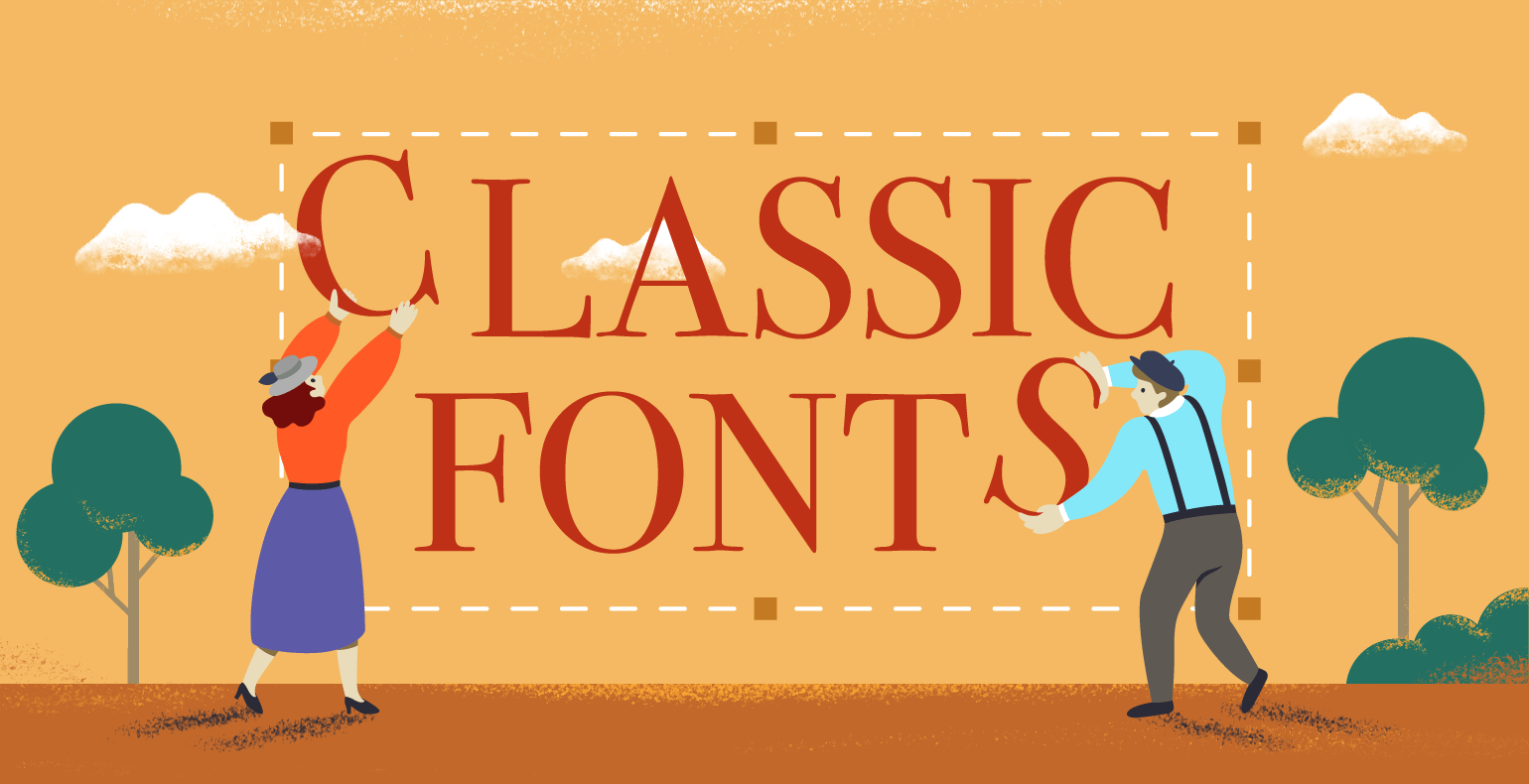
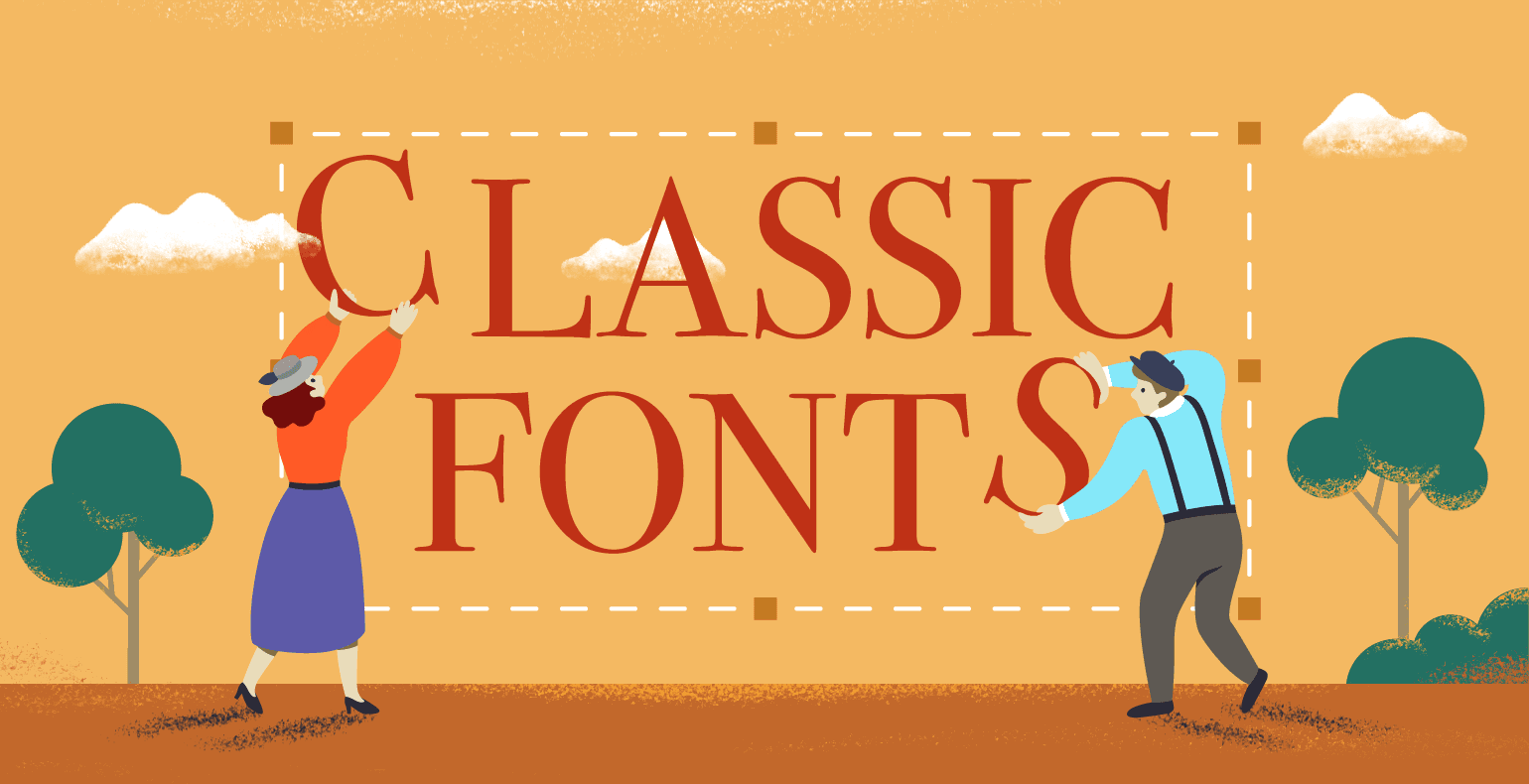
Knowing the fundamentals of classic typography is a must-have skill for any graphic designer.
The only issue is that there are a ton of modern fonts out there so it may be overwhelming to choose one for a new project, whether it's a website, logo, or online advertising campaign.
Here are the fonts they picked.
Elegant, functional, and with an element of warmth due to its slightly rounded corners, Brandon Grotesque is the most versatile font in my personal font library. With a diverse range of weights, Brandon is that one font that looks good spaced out in a thin weight and bolded in all caps. It works well in a diverse range of contexts, such as headlines and body texts, but its greatest strength lies in evoking warmth and friendliness despite its geometric style. It’s a font family that extends itself in creating structure and balance in a refined way.
Brandon Grotesque is a classic sans serif font. It was designed by Hannes von Döhren, who is the owner of HvD Fonts, a type design studio.
This typeface was greatly influenced by the geometric fonts that were quite popular in the 20s and 30s. It's available in six weights (thin, light, regular, medium, bold, and black) and also matching italics.
Hannes von Döhren managed to create a geometric-inspired typeface that has a soft and warm feel to it.
In 2011, Brandon Grotesque even received the Certificate of Excellence from the Type Directors Club, NY. Classic sans serif fonts will never die.
Baskerville is the transitional font that I always go back to because it’s easy to read, sharp, and appealing, which makes it an excellent typeface. Also, the contrast between thick and thin strokes in the letters results in elegant forms throughout the entire font family. The font style is somewhere between classic and modern due to the fact that the font was designed in 1757, but nowadays, it’s one of the most popular fonts. It doesn't just elicit trustworthiness but also is stylish enough to give any design an element of elegance without overdoing it. It can be used for body text, but you will be amazed by what you can do with it in purely typographic art compositions.
Baskerville is a classic serif font designed by John Baskerville, back in the 1750s.
Baskerville (the man) started his career by teaching calligraphy and carving gravestones. At that time, the books that were printed in England had a low standard of quality, and the typefaces that were being used had a conservative style.
Because of this, he wanted to create books and print them using a higher-quality method.
This font has a few interesting features:
Baskerville manages to accentuate the contrast between thick and thin strokes, which makes this font an excellent option for the modern days. Classic serif fonts never dissapoint.
I call it "my favorite" because of its versatility. It became one of the most used fonts among designers. This font comes with seven weights (thin, light, regular, semibold, bold, extra bold, and black – each one with an italic version too). I use it as a safe font (especially whenever I don't know what to use), and it matches most of my combinations. I've been using this font in Menus, Headlines, anything that you could think of (even logos) and it does great!
Proxima Nova was created by Mark Simonson in 2005, who is a graphic designer, illustrator, and founder of a studio specialized in lettering and typography.
Simonson has been working on this typeface in various forms since 1981. Proxima Nova is actually a complete remodel of Proxima Sans, that was released in 1994, which is now discontinued.
There are 48 fonts in this family and three widths: Proxima Nova, Proxima Nova Condensed, and Proxima Nova Extra Condensed.
Is has eight weights: Thin, Light, Regular, Medium, Semibold, Bold, Extrabold, and Black. There are also matching italics for all the widths and weights.
Proxima Nova is a hybrid between Futura and Akzidenz Grotesk, which combines a modern style with a geometric aspect.
Even though it's quite a popular font on the web, it's a great option that can be used for various purposes, like Robert said.
Picked by Gyöngyi Balogh:
There are many beautiful classic fonts to choose from, but my current favorite is Rockwell. It was created for headlines, it was designed by the Monotype Corporation and was released in 1934. It's a geometric slab-serif font with a monoline construction and some extra strokes that give this font a bit of a rough, but elegant look. This font is more of a display font. It is not recommended to use it as body text, but it goes well with most simple and thin fonts. I use this font whenever I need an interesting, elegant, and bold font for headlines, illustrations, or designs.
Rockwell is a geometric slab serif font that was created in 1934 by Frank Hinman Pierpont.
As you saw, our designers managed to help me compile a list of classic font styles that are extremely varied.